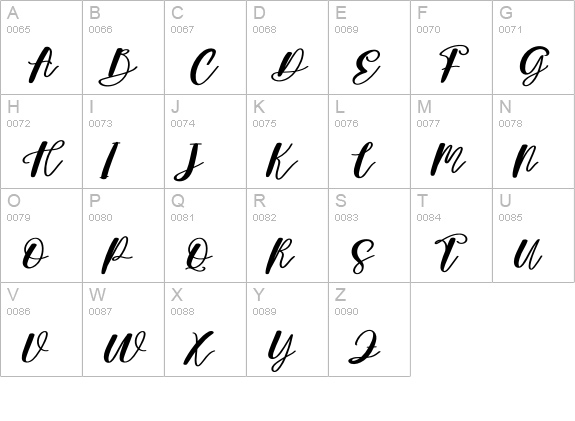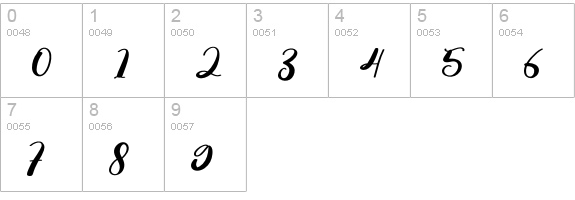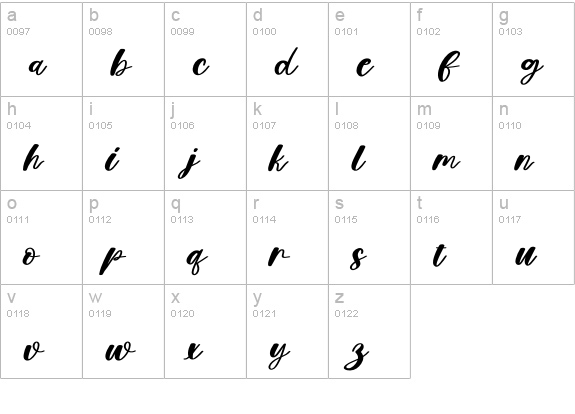
The Calligrapher font is a beautifully crafted typeface that exudes elegance and sophistication. Its intricate strokes and flowing curves make it perfect for adding a touch of class to your designs. Whether you're working on invitations, logos, or other creative projects, the Calligrapher font will surely make a lasting impression.